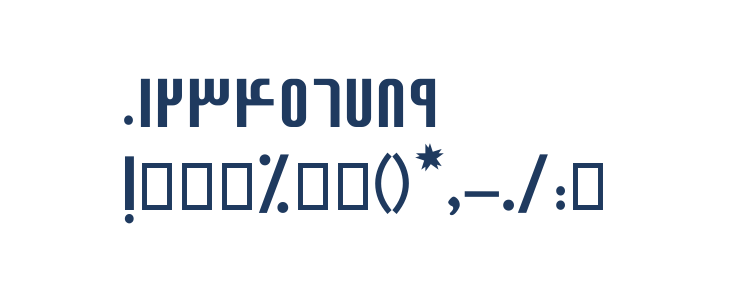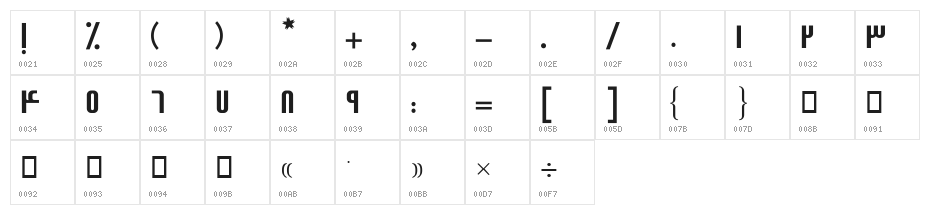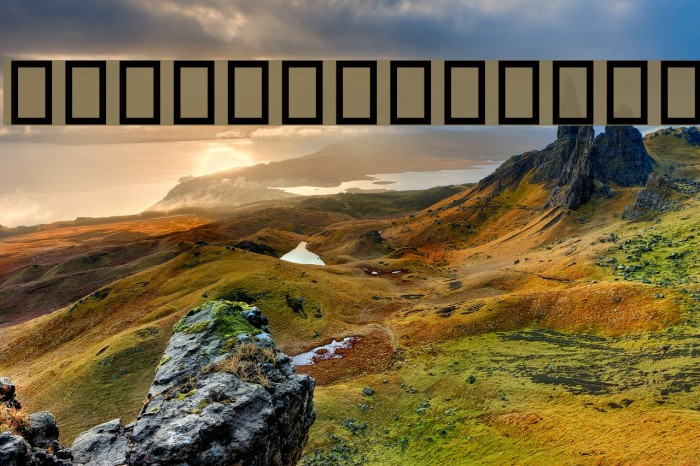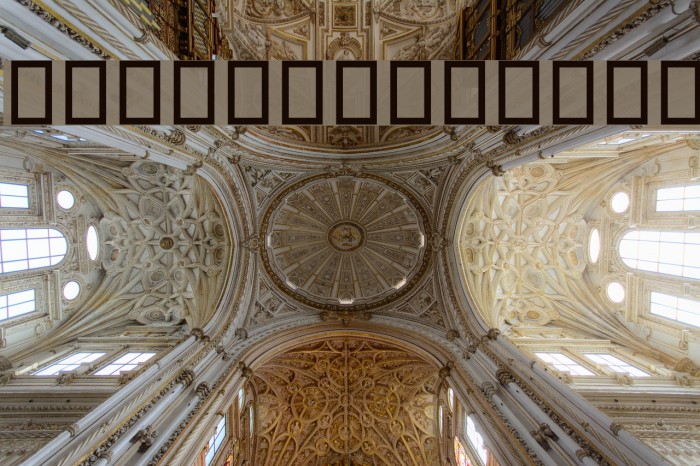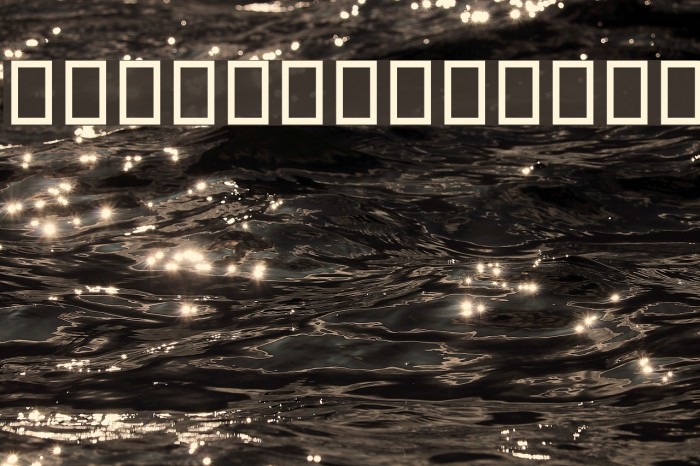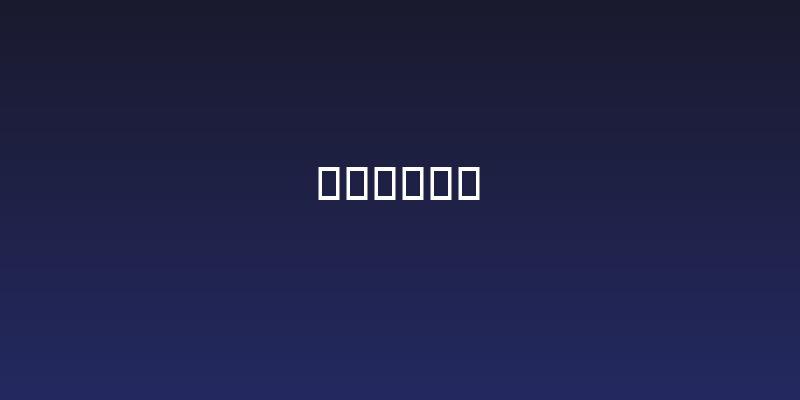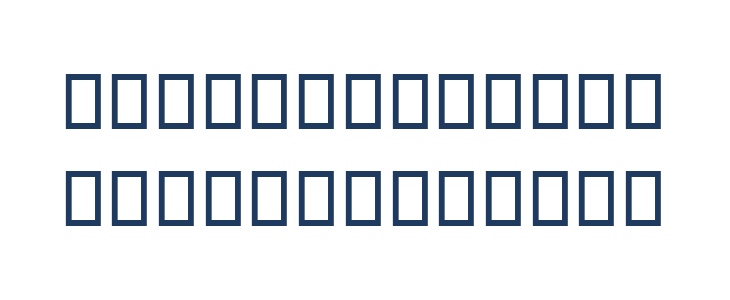
Erfaan Font
Erfaan Description
This font features a bold and modern design with a strong geometric influence. The characters are constructed with thick, uniform strokes that give it a robust and impactful appearance. The numerals and special characters maintain the same boldness, ensuring consistency across all elements. The font's style is clean and minimalistic, making it suitable for contemporary design projects. Its bold weight and high contrast between strokes make it stand out, while the spacing between characters is normal, allowing for good readability.
| Proposed Projects | Ideal for headlines, posters, branding, and logo design where a strong visual impact is desired. |